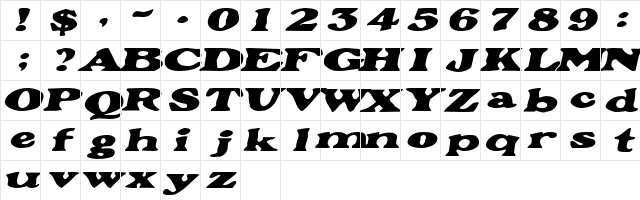
GrantExtended Oblique
Design Context for GrantExtended Typeface
GrantExtended is a composed and adaptable typeface that performs quietly and consistently across a wide range of design contexts. The dynamic lean of this cut emphasises speed and emphasis in any layout.
Pro Tip: Try GrantExtended for annotation and caption copy alongside an upright companion — the contrast in angle creates a dynamic but ordered typographic system.